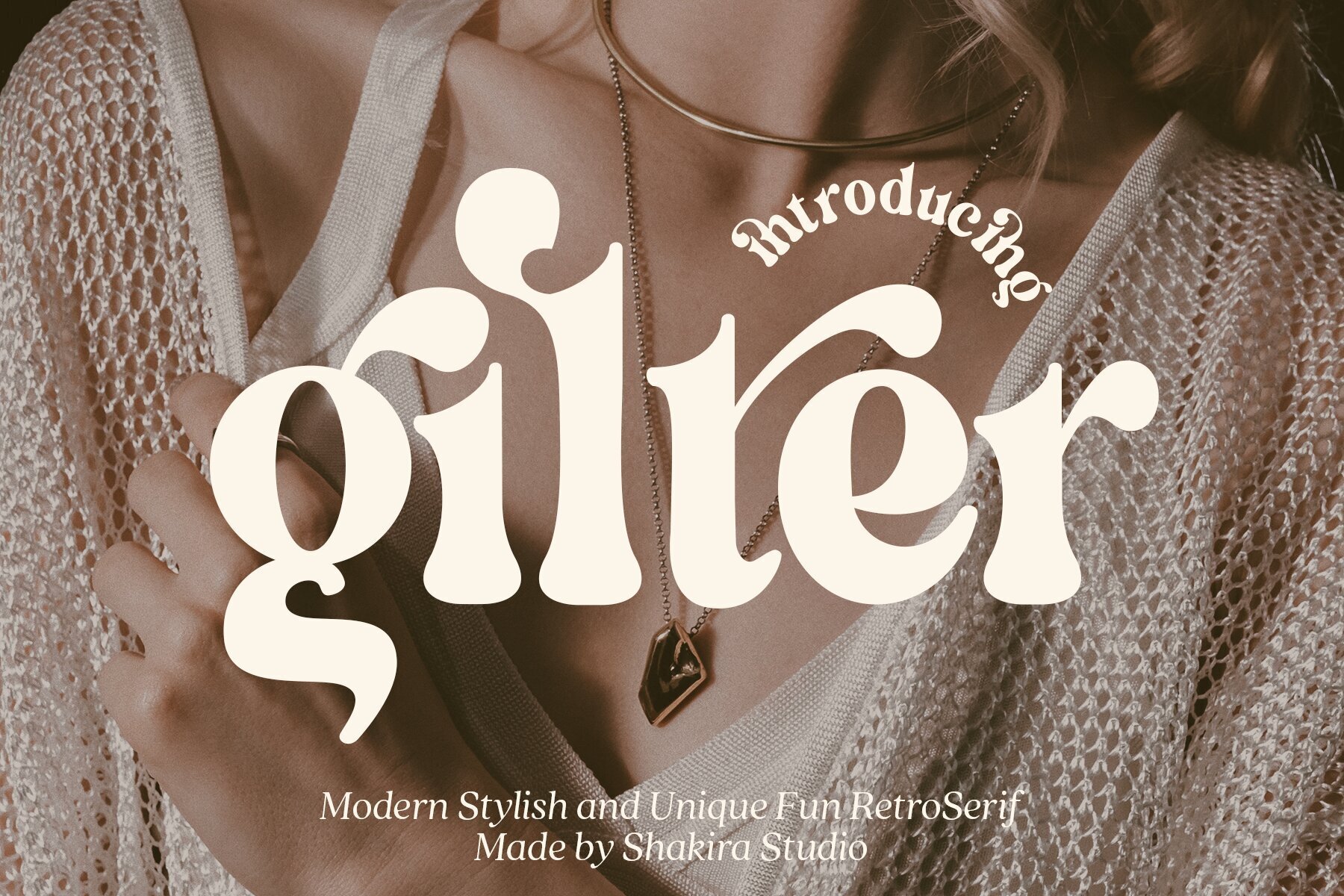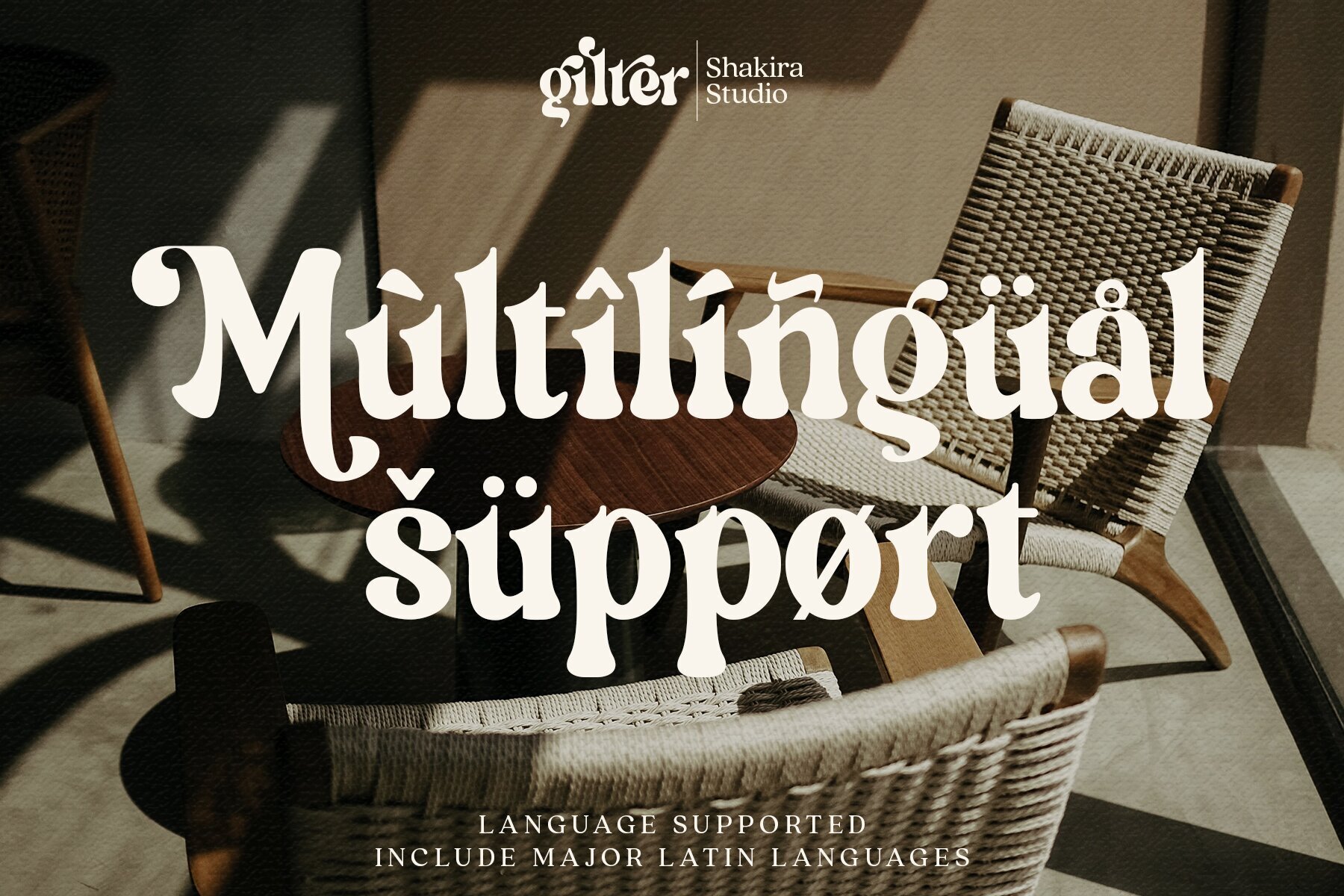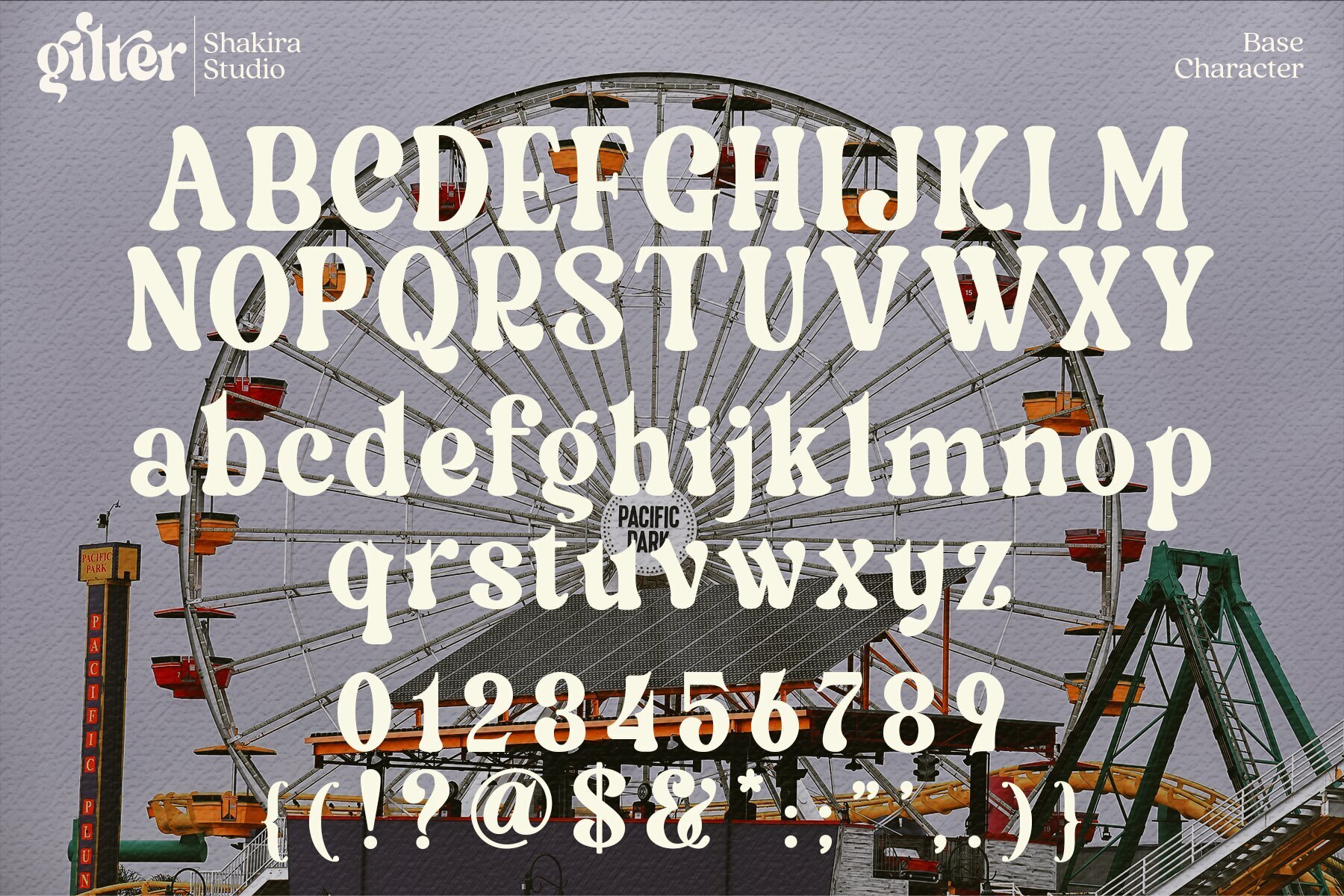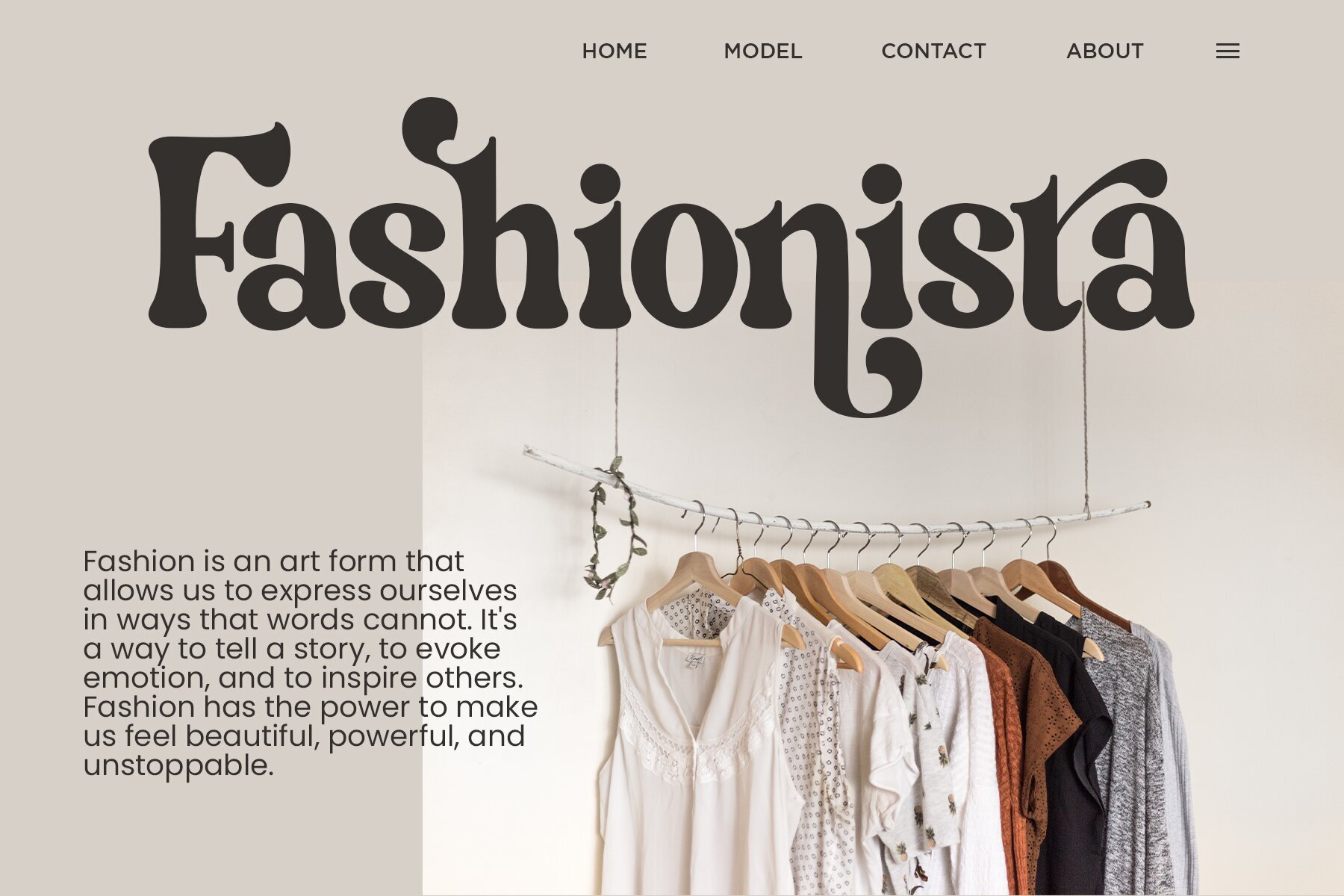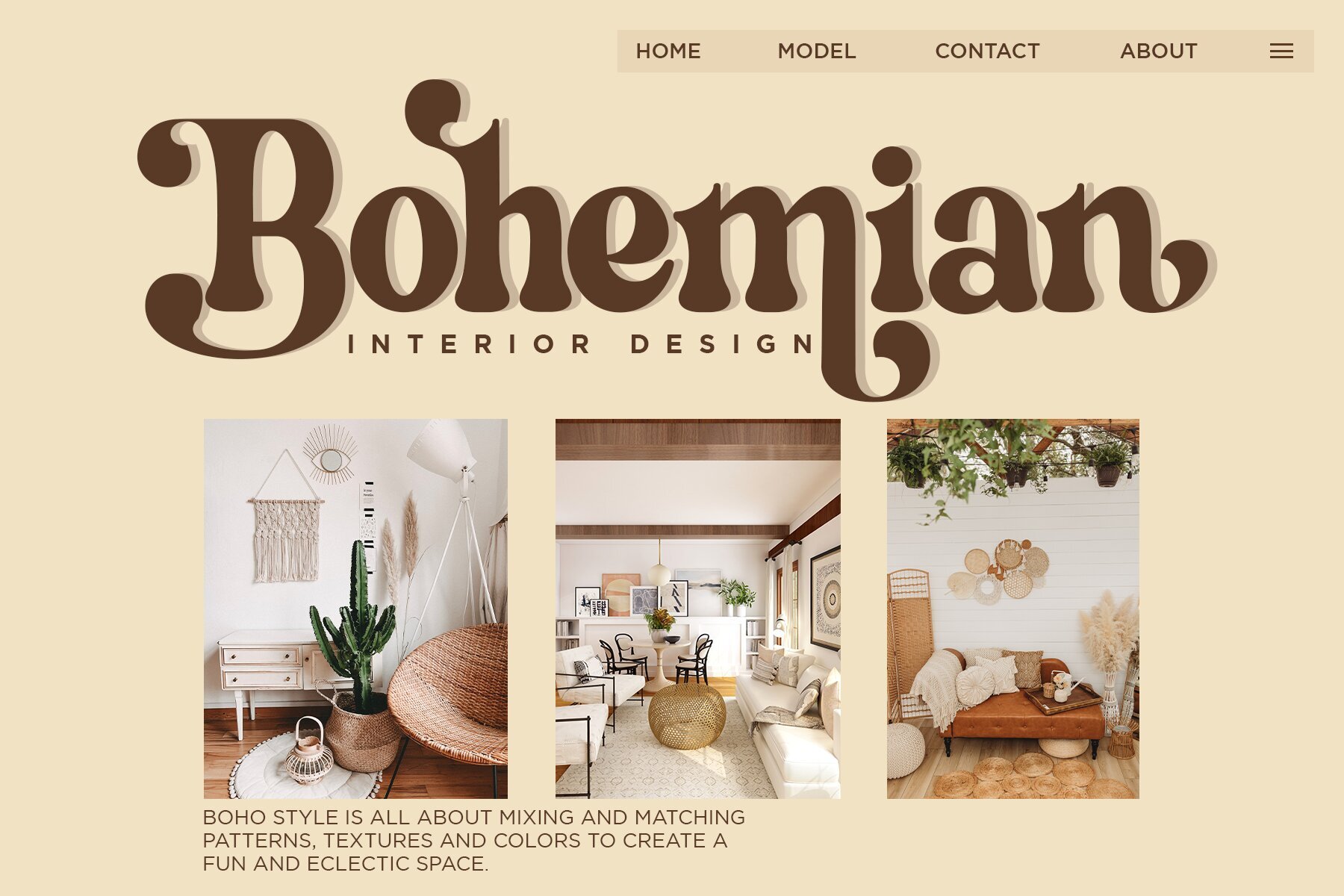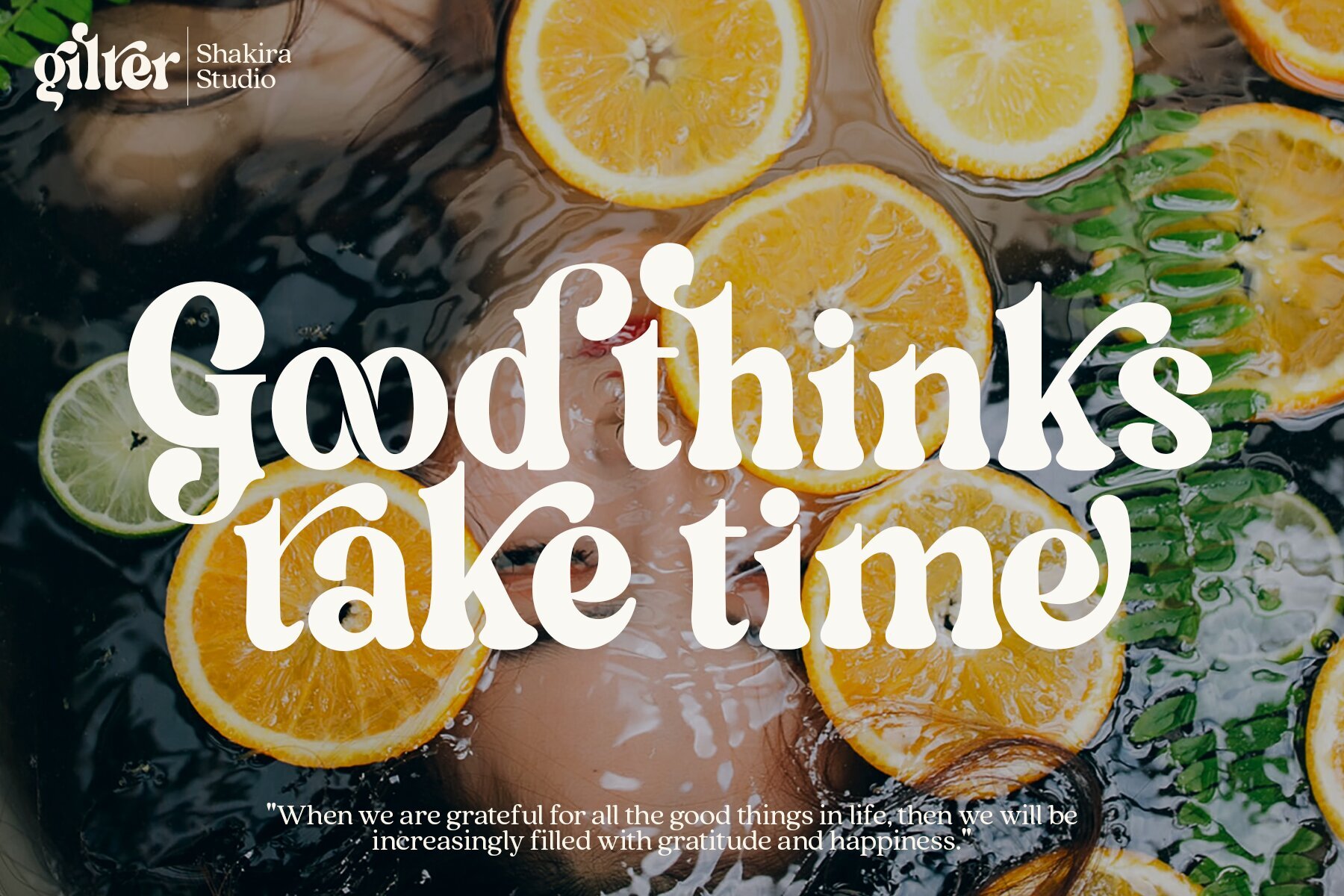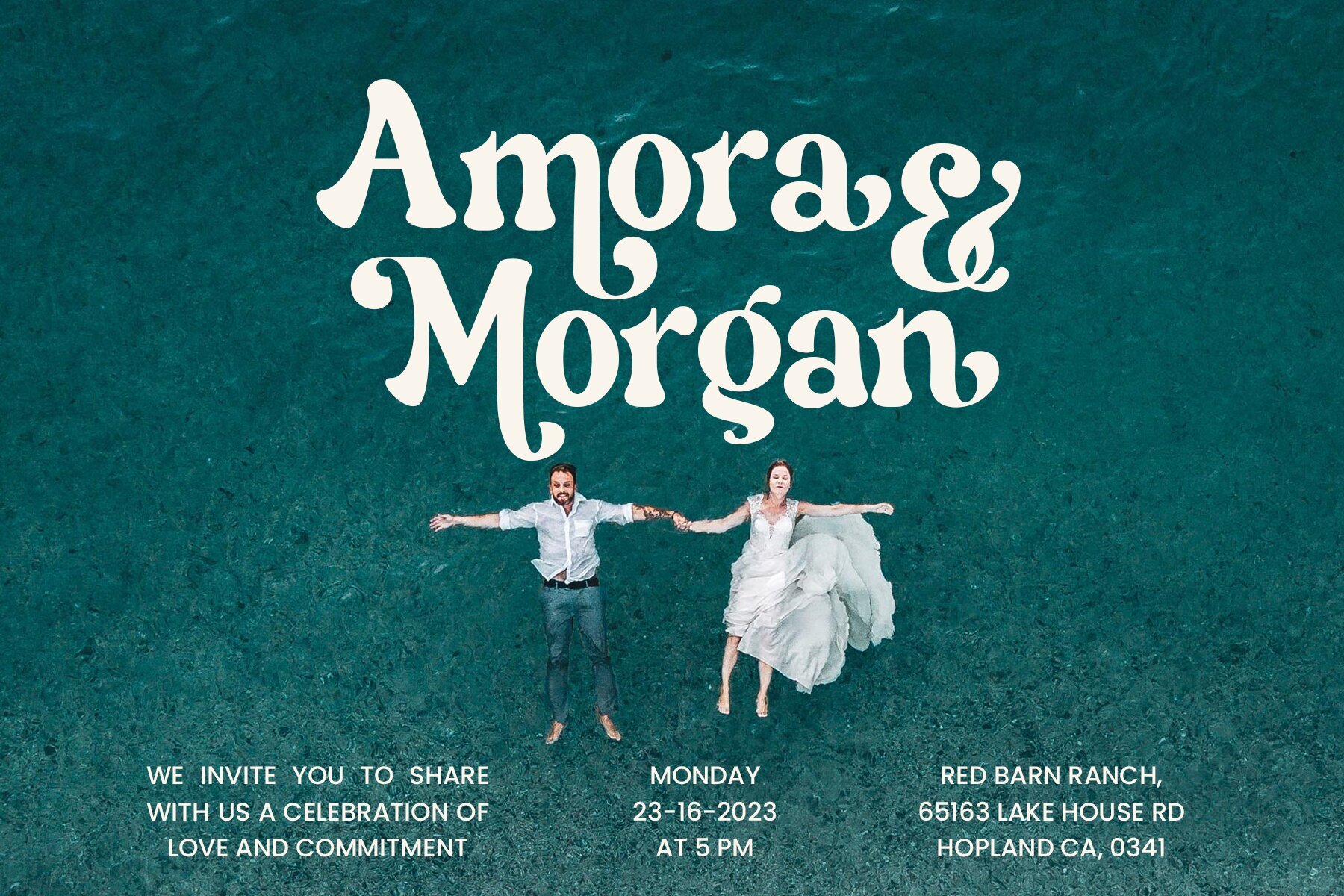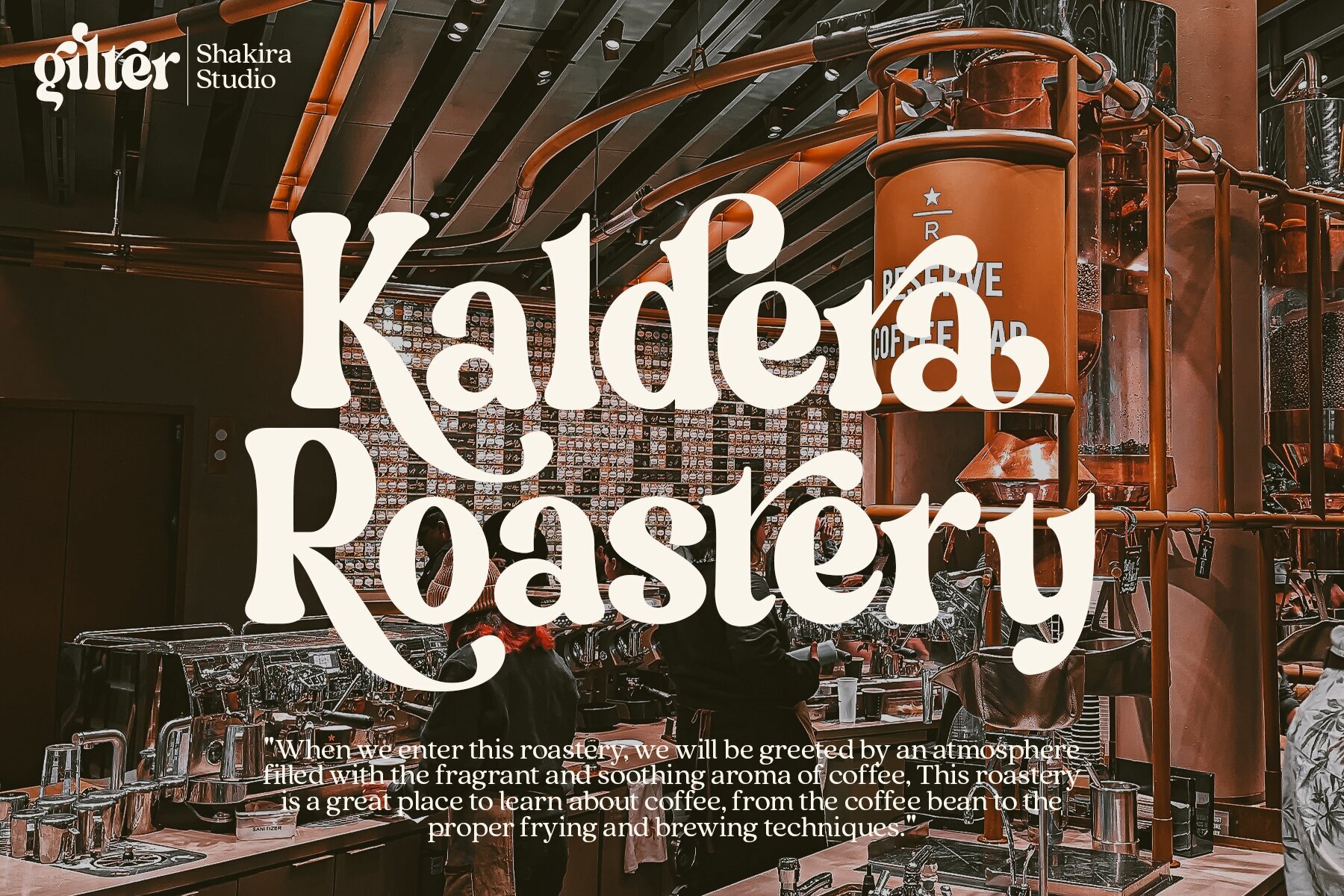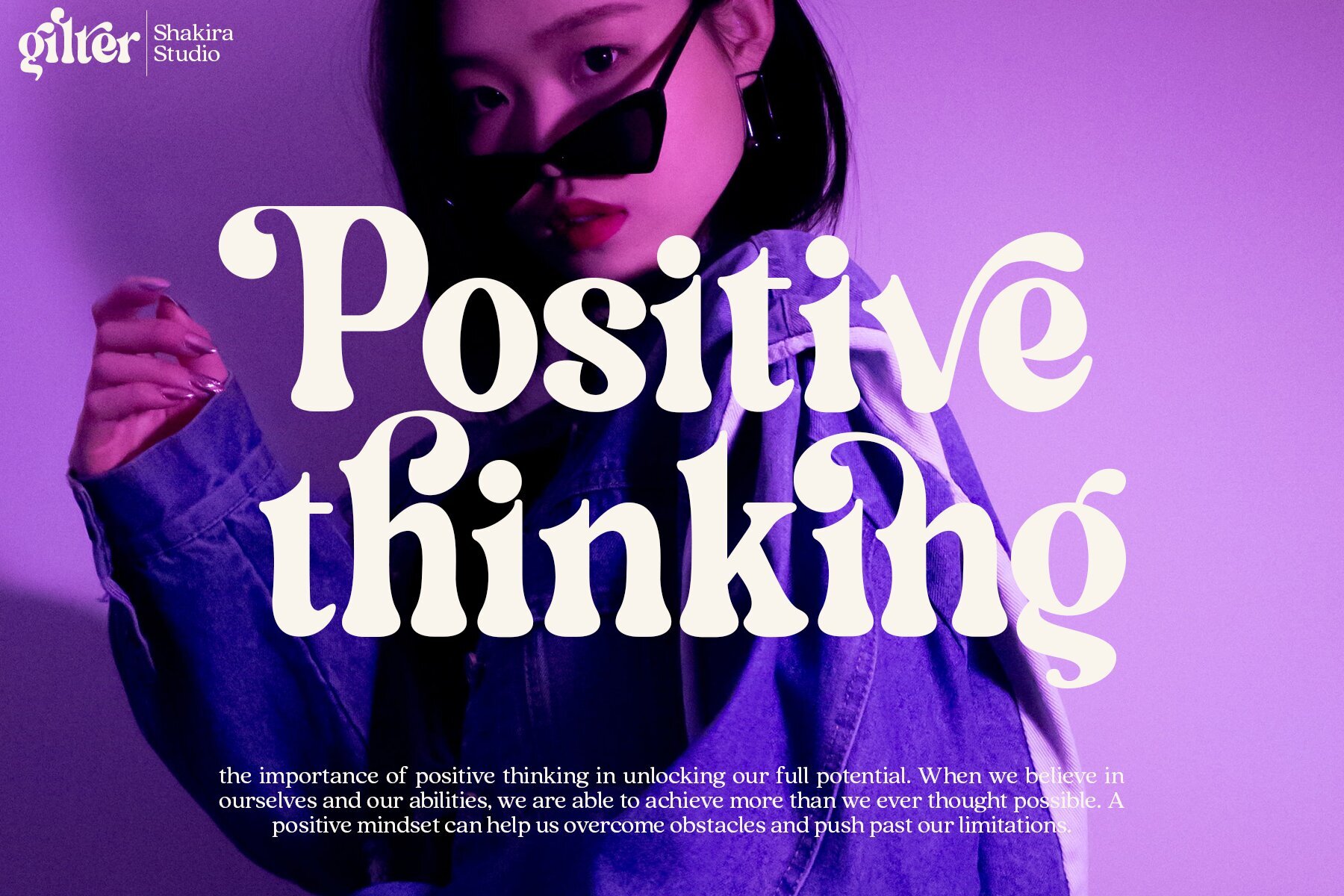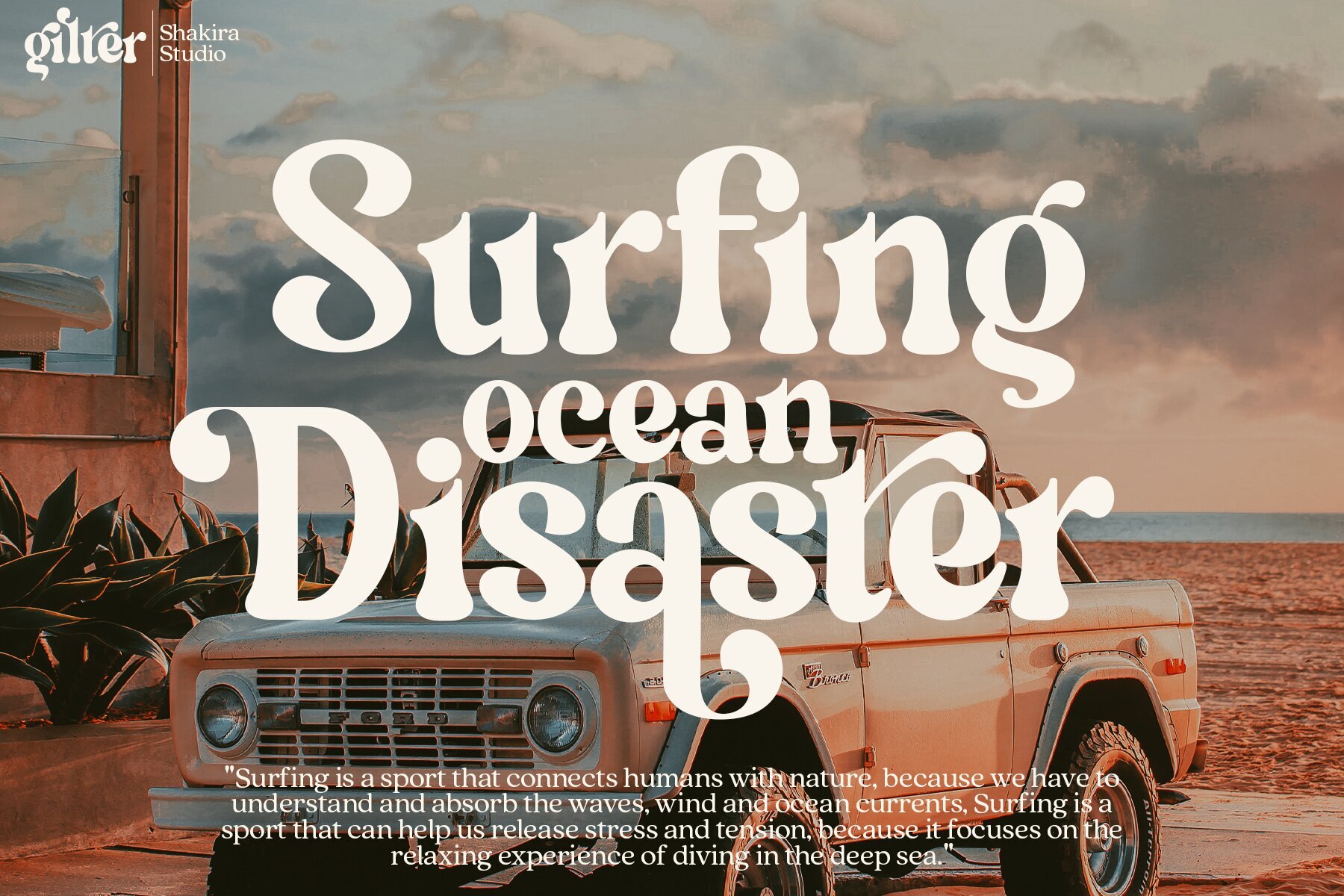
Gilter Font
Gilter is a font that's designed to give your designs a modern, stylish, and unique feel. With its combination of fun retro serif shapes and elegant appearance, it's the perfect choice for designs that want to make a creative impression and stand out from the crowd.
Gilter features strong and tough-looking letter characters that are perfect for designs that require a bold and confident feel. This font is designed to make a statement and grab the attention of your audience, making it perfect for branding, packaging, and posters.
Despite its strong and tough-looking characters, Gilter still maintains a friendly and welcoming impression. This feature makes it perfect for a wide range of projects, from website design to social media graphics.
Gilter is a versatile font that's perfect for a wide range of projects. Its retro serif shapes and elegant appearance make it ideal for branding, packaging, posters, and website design. This font is the perfect choice for designers who want to create a unique and modern look for their designs.